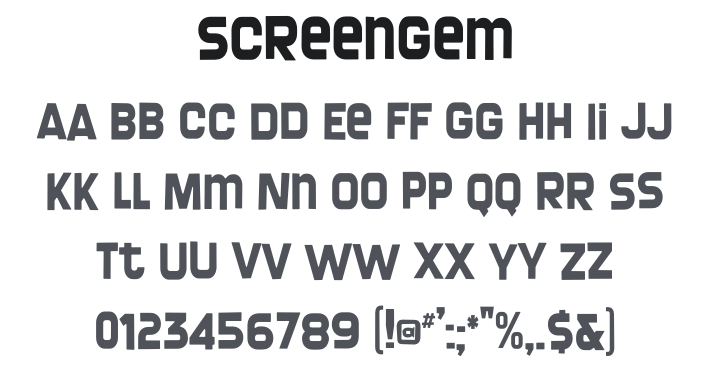
Screengem Font
About Screengem
Screengem is a squircular unicase techno display typeface inspired by Microgramma's superelliptical forms — its rounded-square letterforms have a cool, futuristic authority with a loose, slightly beatnik personality that prevents it from feeling too stiff or corporate. The unicase design mixes cap and lowercase proportions freely. Perfect for sci-fi branding, tech product headlines, game interfaces, retro-futuristic posters, and any design needing confident, geometric modern cool.